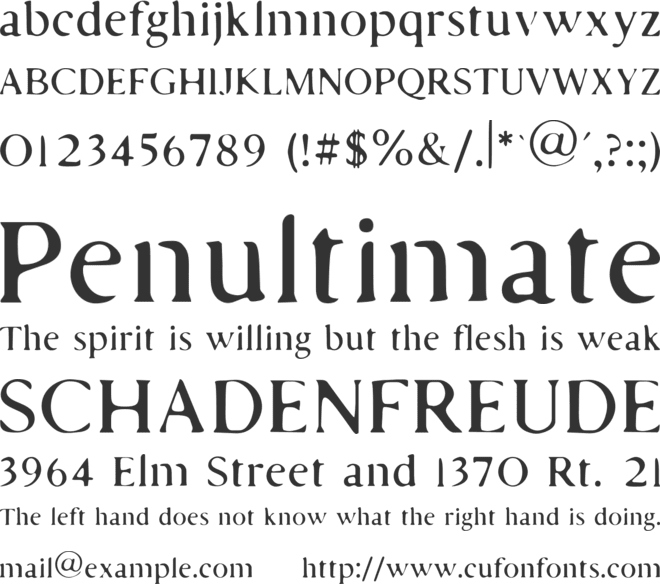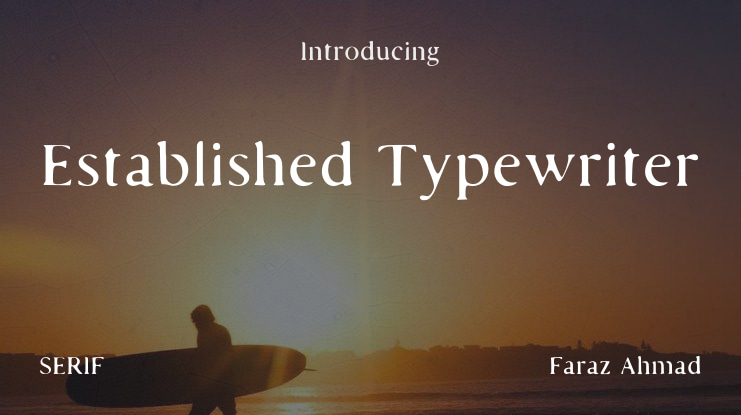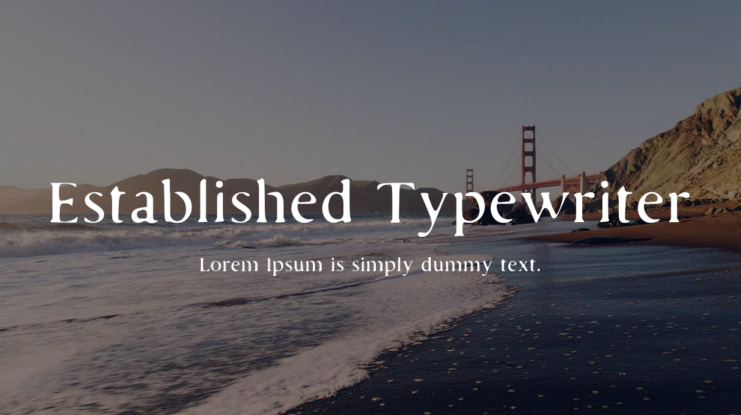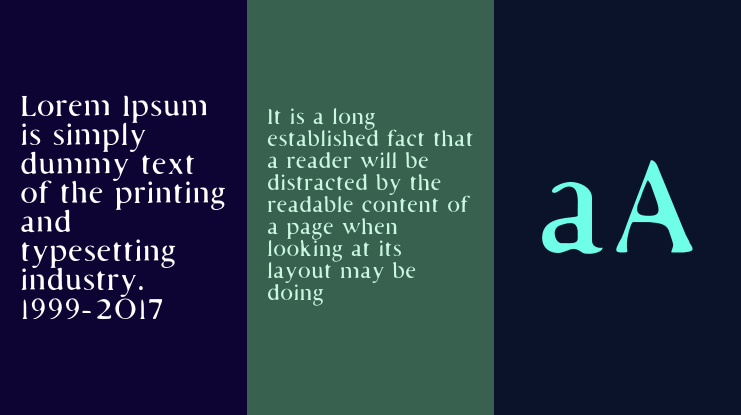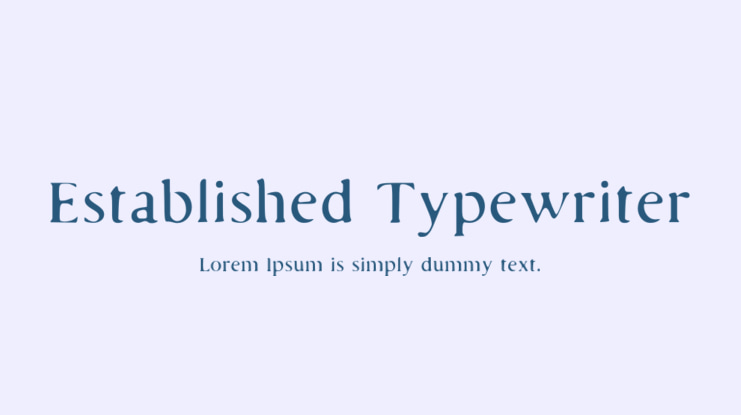
Established Typewriter Font
Faraz Ahmad
Established Typewriter is a vintage-inspired font that offers a classic aesthetic. This elegant typeface is perfect for timeless projects, thanks to its nostalgic charm. Established Typewriter creates a classic feel for historical novel covers, vintage invitations, and retro branding.